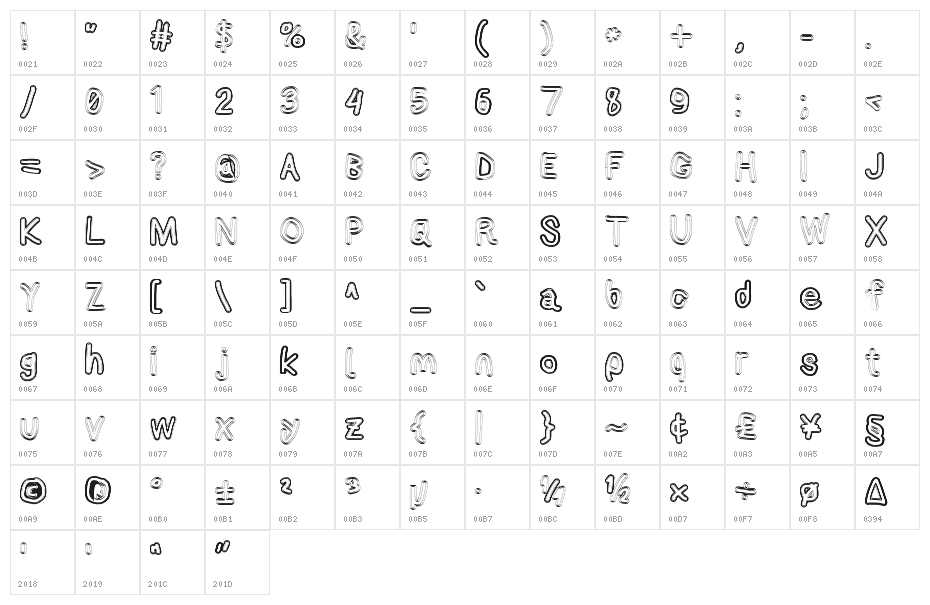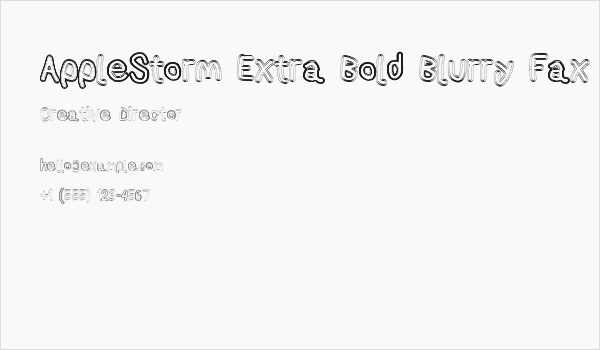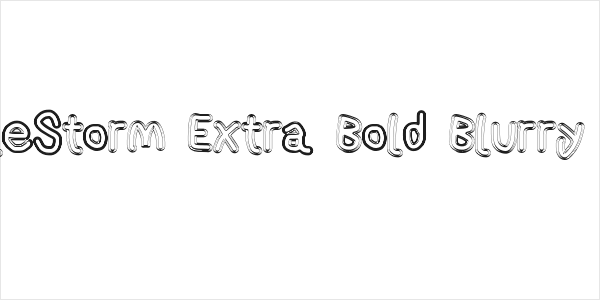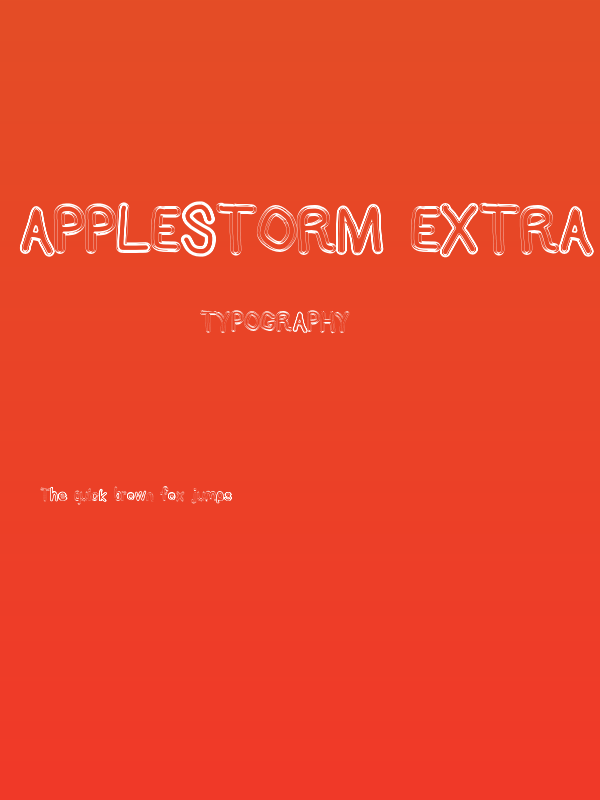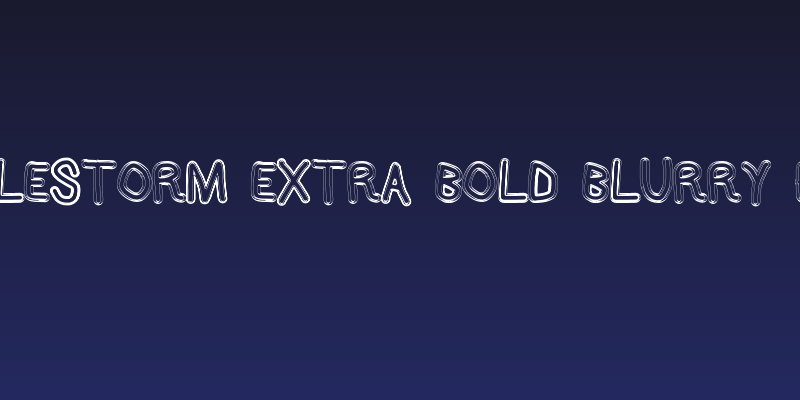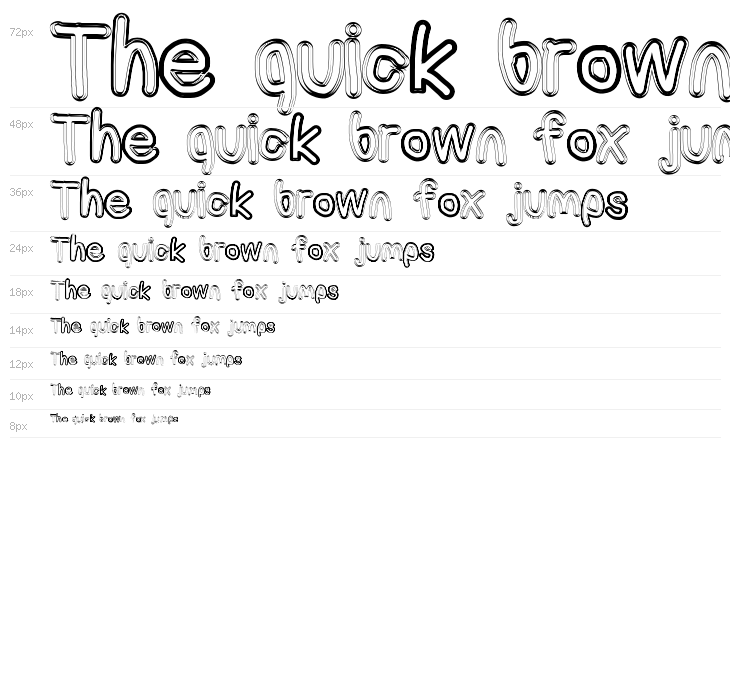
AppleStorm Extra Bold Blurry Fax Font
AppleStorm Extra Bold Blurry Fax Description
This font features a bold and playful design with a three-dimensional effect, giving it a unique and eye-catching appearance. The letters are outlined with a thick, wavy line that creates a sense of movement and depth. The characters are rounded and slightly irregular, adding to the whimsical and informal style. The font includes both uppercase and lowercase letters, numbers, and a variety of special characters. Its boldness and distinct style make it suitable for projects that require a fun and dynamic look.
Proposed ProjectsIdeal for children's books, playful branding, posters, and creative designs.